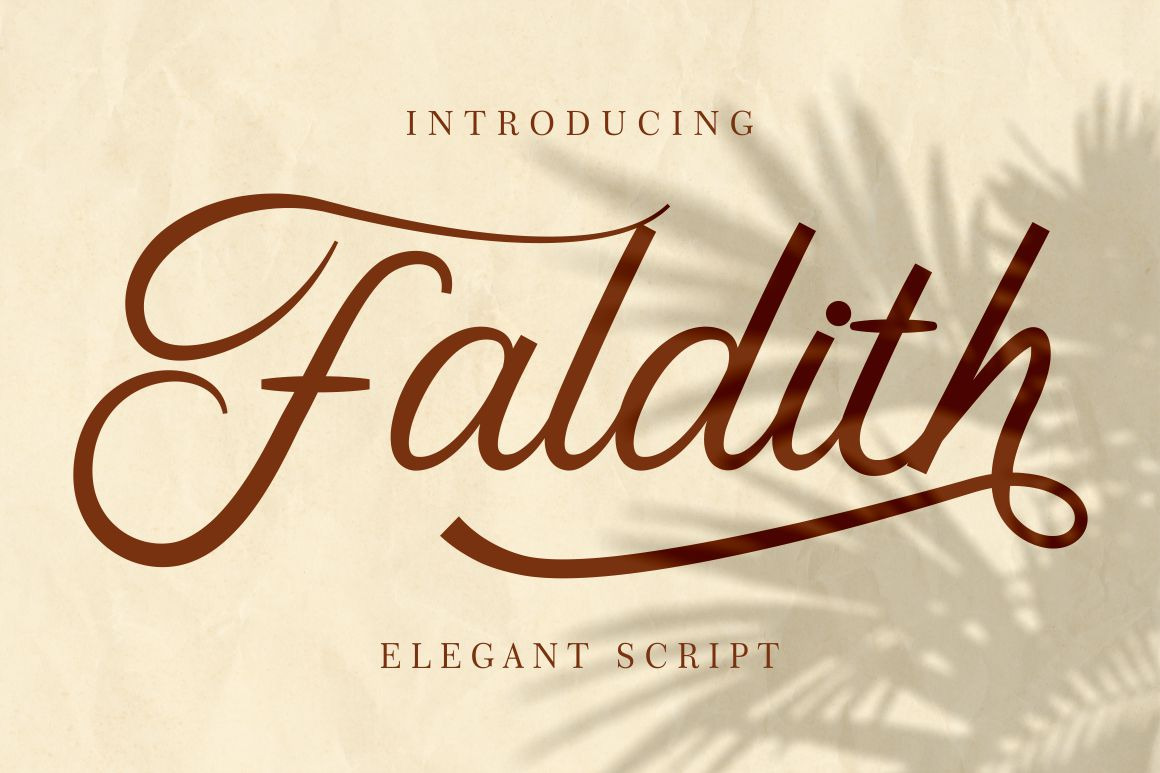
Faldith - Elegant Script Font
Faldith - Elegant Script Font. Faldith is a luxurious and elegant calligraphy font with magical pressure
Faldith is perfect for elegant logos, upscale packaging, wedding stationery, websites, and any other projects requiring a handwritten and luxurious touch. A wide range of swashes and alternates are included so that you can give your logo or name a custom, hand-calligraphy look.
The alternative characters were divided into several Open Type features such as Swash, Stylistic Sets, Stylistic Alternates, Contextual Alternates, and Ligature. The Open Type features can be accessed by using Open Type savvy programs such as Adobe Illustrator, Adobe InDesign, Adobe Photoshop Corel Draw X version, And Microsoft Word. This font is also support multi language.